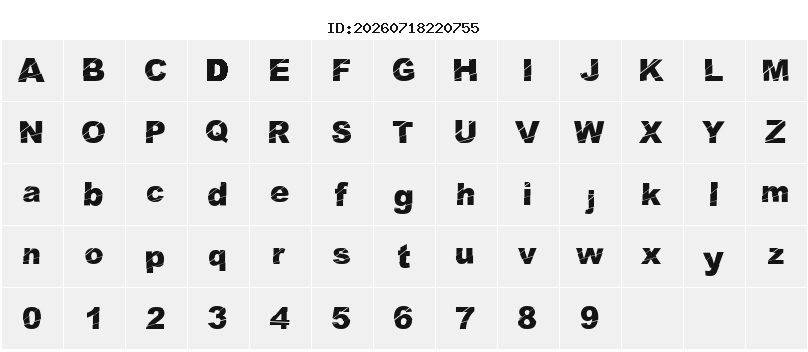
• Font Name: Cosmical disfase
• Designer: Jesus Sandoval Tapia
Cosmical disfase.ttf is a modern, elegant sans-serif font designed for ultimate readability and visual harmony. Perfect for branding, headlines, web design, and print materials.